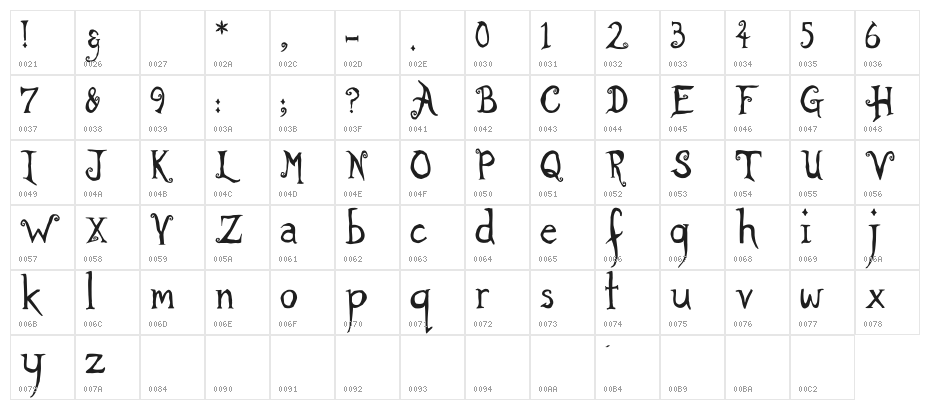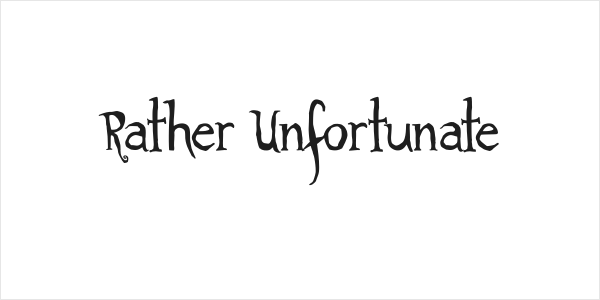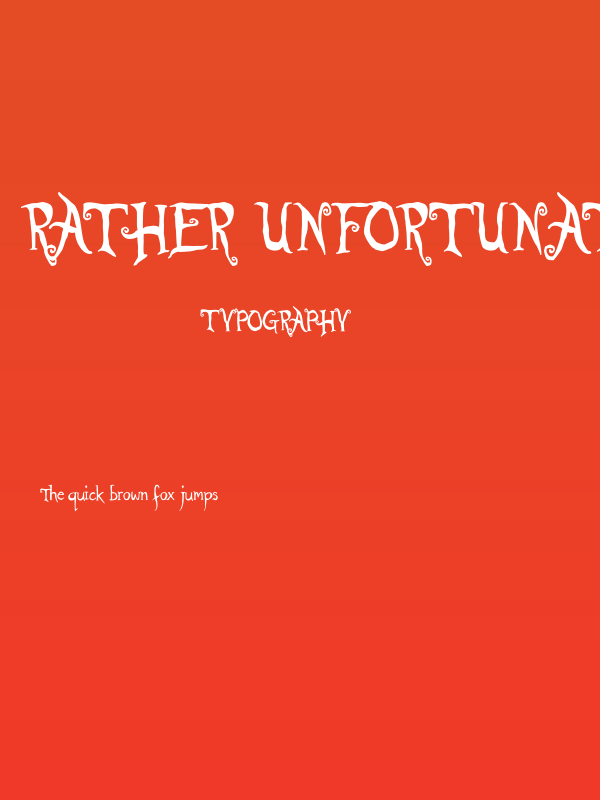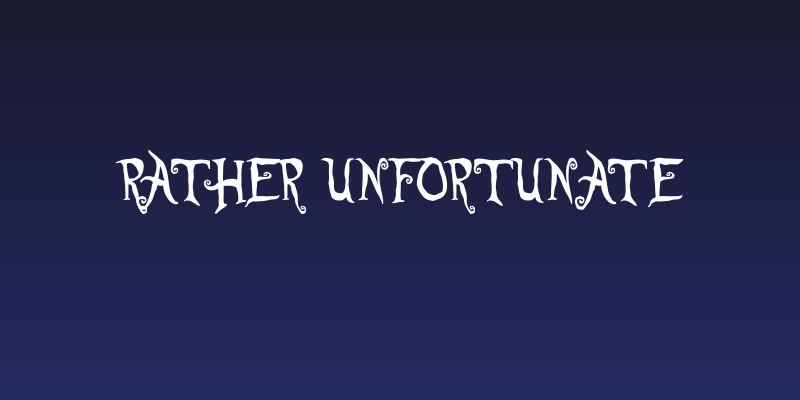
Rather Unfortunate Font
| Proiecte propuse | Ideal for Halloween-themed designs, fantasy book covers, children's party invitations, and creative branding projects. |